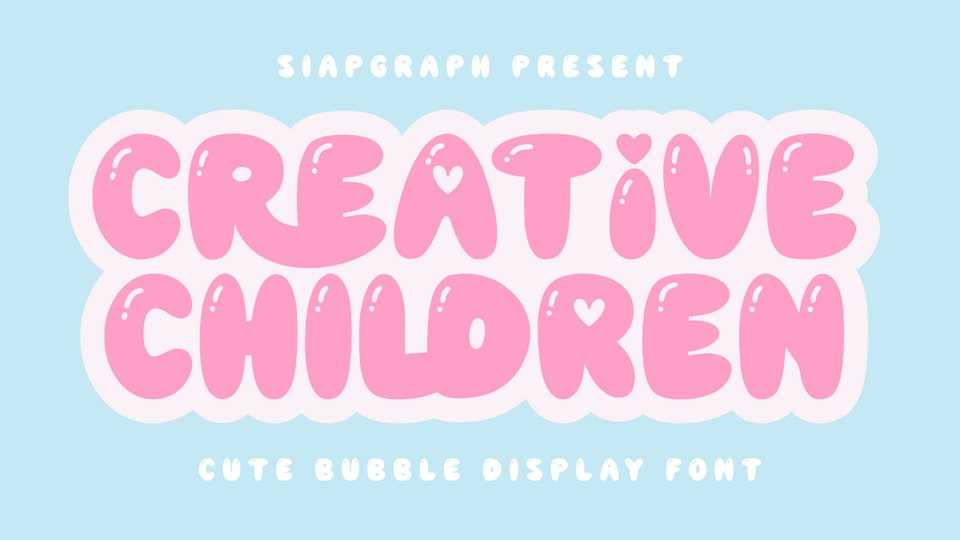
Download Creative Children font, an absolutely adorable and playful bubble display typeface that instantly brings a burst of youthful energy and whimsical charm to any design.
Designer: SiapGraph